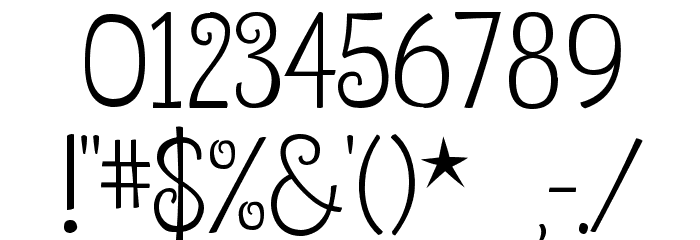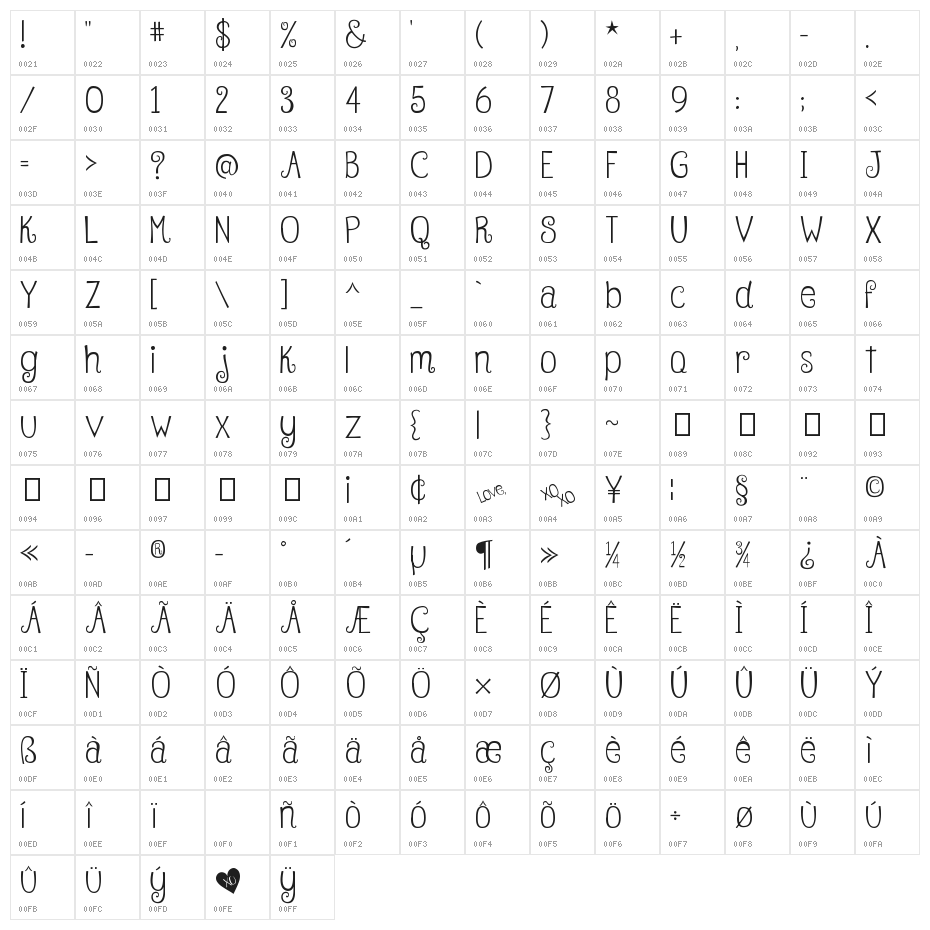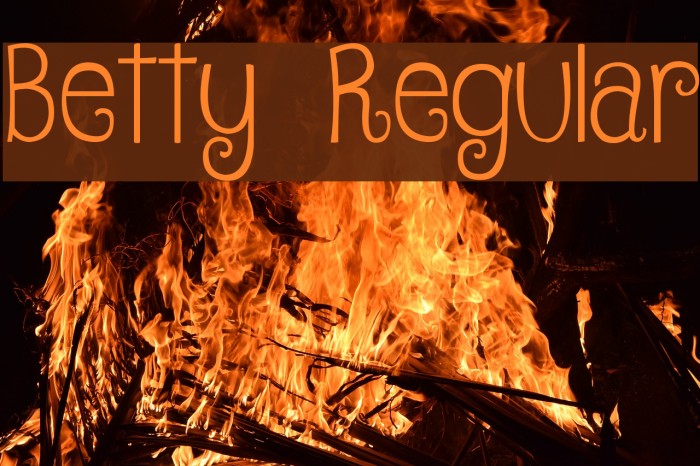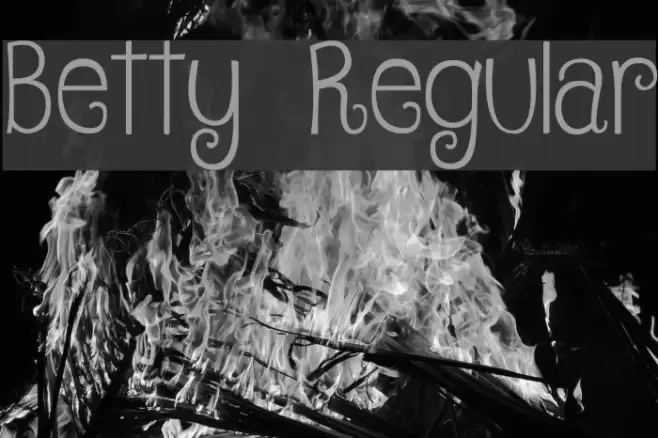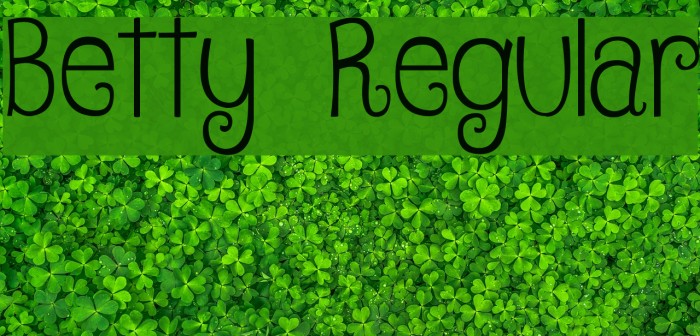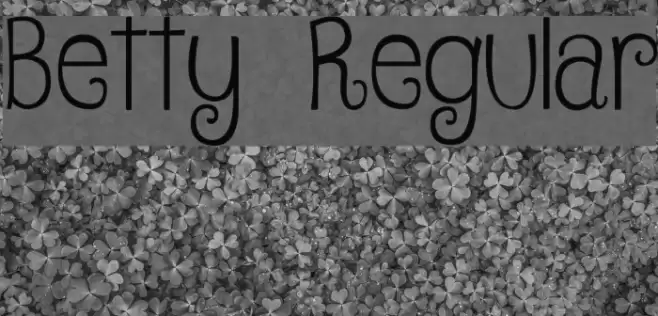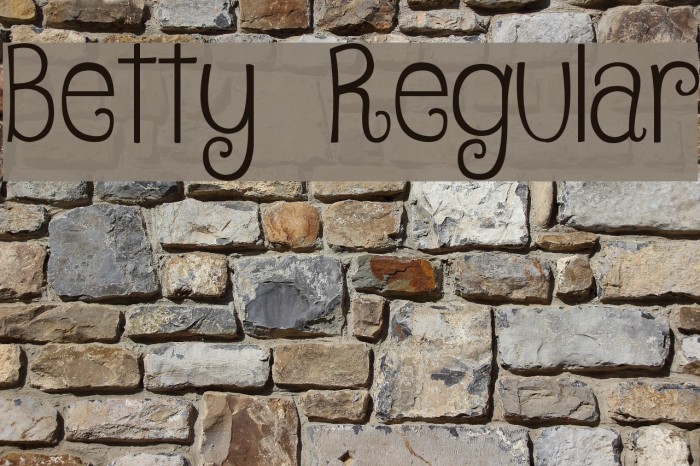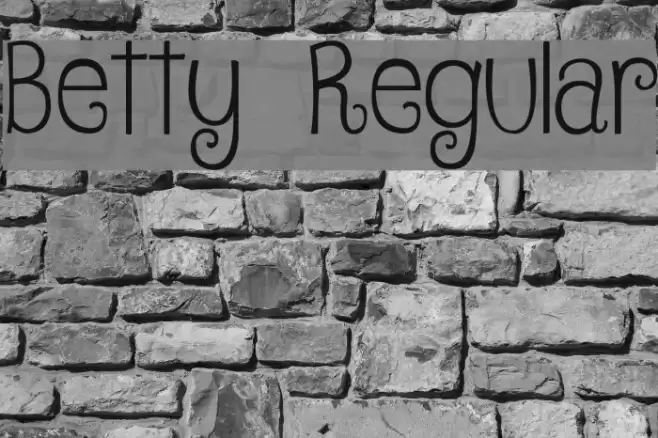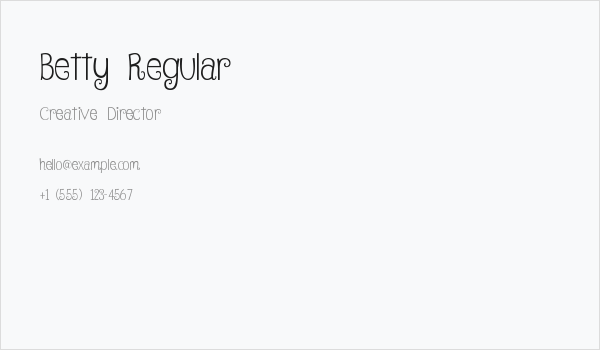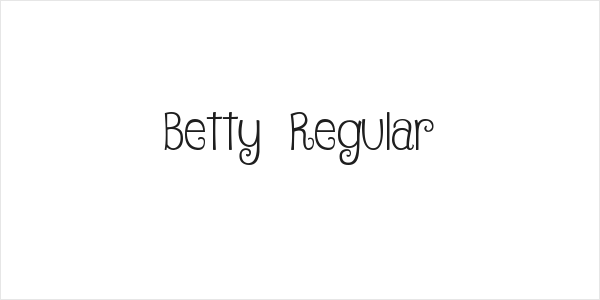
Betty Regular Font
Betty Regular Description
This font features a playful and whimsical style with a handwritten feel. The characters are tall and slightly narrow, with unique curls and loops that add a decorative touch. The uppercase letters are bold and prominent, while the lowercase letters maintain a consistent flow with charming embellishments. Numbers are clear and legible, matching the overall aesthetic. Special characters are creatively designed, enhancing the font's quirky personality. This font is ideal for projects that require a fun and engaging look.
| Overall Style | Whimsical, Playful |
| Proposed Projects | Perfect for children's books, greeting cards, playful branding, and creative invitations. |